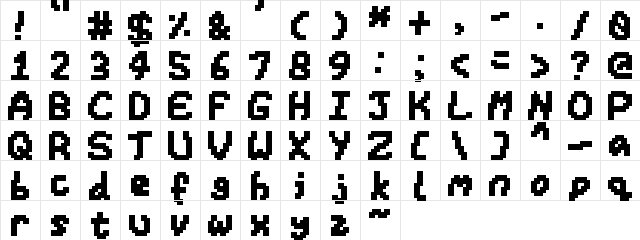
Mitochondria Regular
| Designer | Dinoraz |
Mitochondria takes a measured approach to typography — its balanced proportions and neutral character make it a reliable workhorse for both digital and print work.